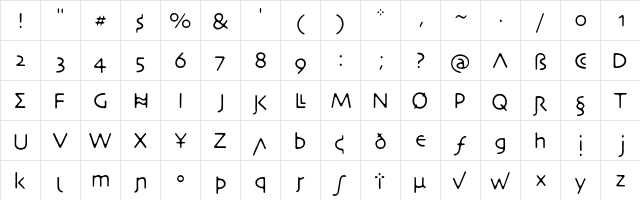
NecroticTissue Regular
Design Context for NecroticTissue Typeface
NecroticTissue offers clean, dependable letterforms without strong stylistic allegiance, making it a practical choice for designers who need flexibility.